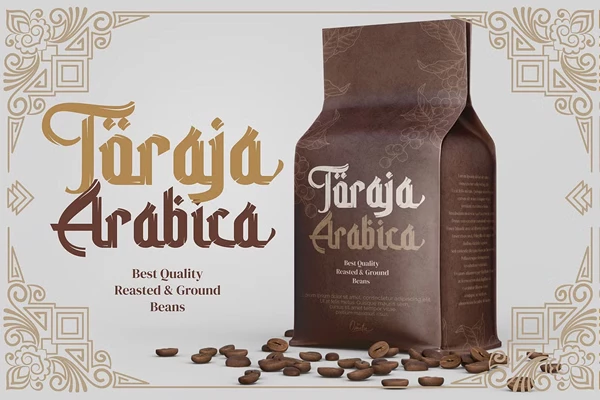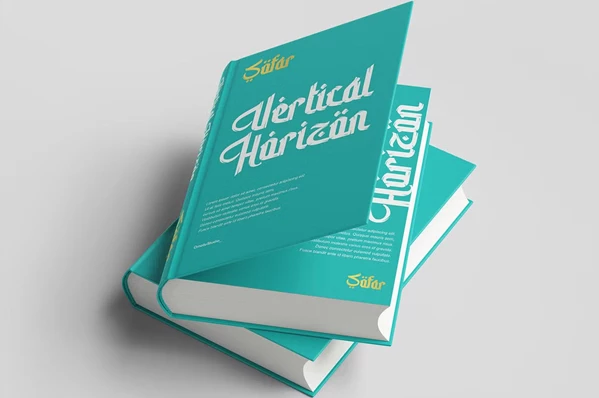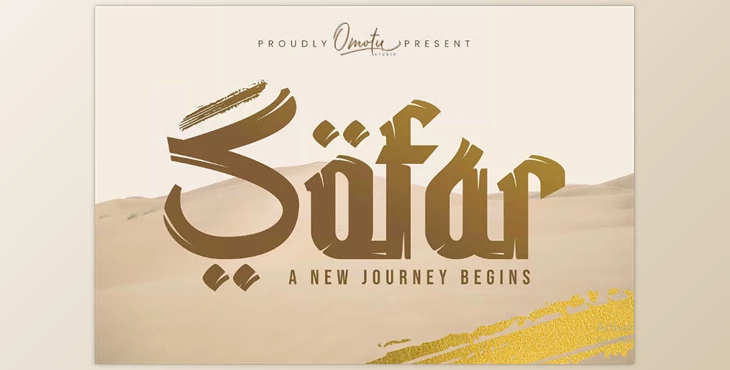
Sofar Font:
The Sofar font is a typeface of the modern Arabic font of a contemporary design which can easily serve many purposes. This makes it ideal for composing headings, branding logos, or apparel like T-shirts and hoodies. Moreover, it also serves well in quotations, flyers, posters, book covers, and advertisements. With this font, a creative is offered a style and functionality blend, which is extremely useful.
- Provides comprehensive OpenType and multilingual support for enhanced international usability.
- Provides a wide range of characters including uppercase, lowercase, numerals, punctuation and multilingual characters.
- Provides advanced features for typography that include alternates for uppercase and lowercase letters, swashes, and aalt along with calt.